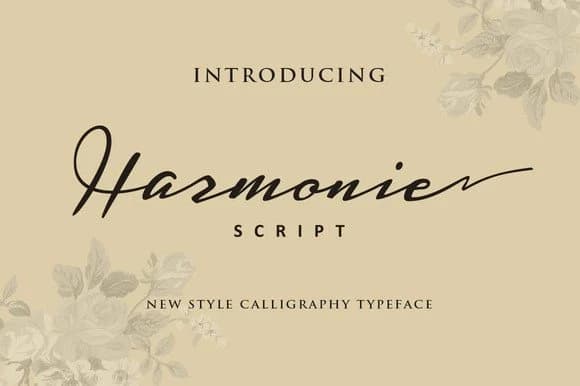
About Harmonie Font
Harmonie Font by Ian Mikraz is a flowing handwritten script typeface that brings organic elegance and personal warmth to contemporary design projects. The letterforms carry natural rhythm and fluidity, balancing the organic character of hand lettering with the visual clarity needed for professional applications across multiple mediums. Its smooth curves and thoughtfully drawn characters maintain legibility at various scales, from prominent headlines to smaller text elements in complex layouts.
This script font works particularly well for wedding invitation suites, personalized stationery sets, boutique bakery packaging, custom wine label designs, and hand-lettered brand logos. The refined-yet-accessible quality of Harmonie appeals to designers building distinctive brand identities and crafters developing handmade product lines with visual personality. The typeface's fluid aesthetic suits both minimalist layouts and more embellished designs, adapting naturally to editorial spreads, social media graphics, packaging applications, and decorative signage projects.
- Elegant, Flowing, Harmonie
Harmonie Font is a script font that shines as a display or heading face. Pair it with a clean sans-serif or serif font for body text β the contrast creates a clear hierarchy while the two styles stay balanced and easy to read.